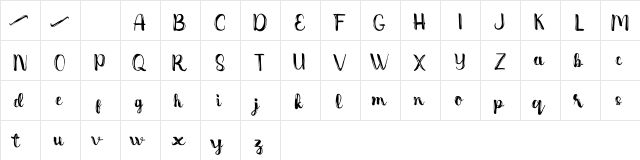
Dentanx Regular Font Preview
Dentanx Regular
Design Context for Dentanx Typeface
Dentanx is a composed and adaptable typeface that performs quietly and consistently across a wide range of design contexts.